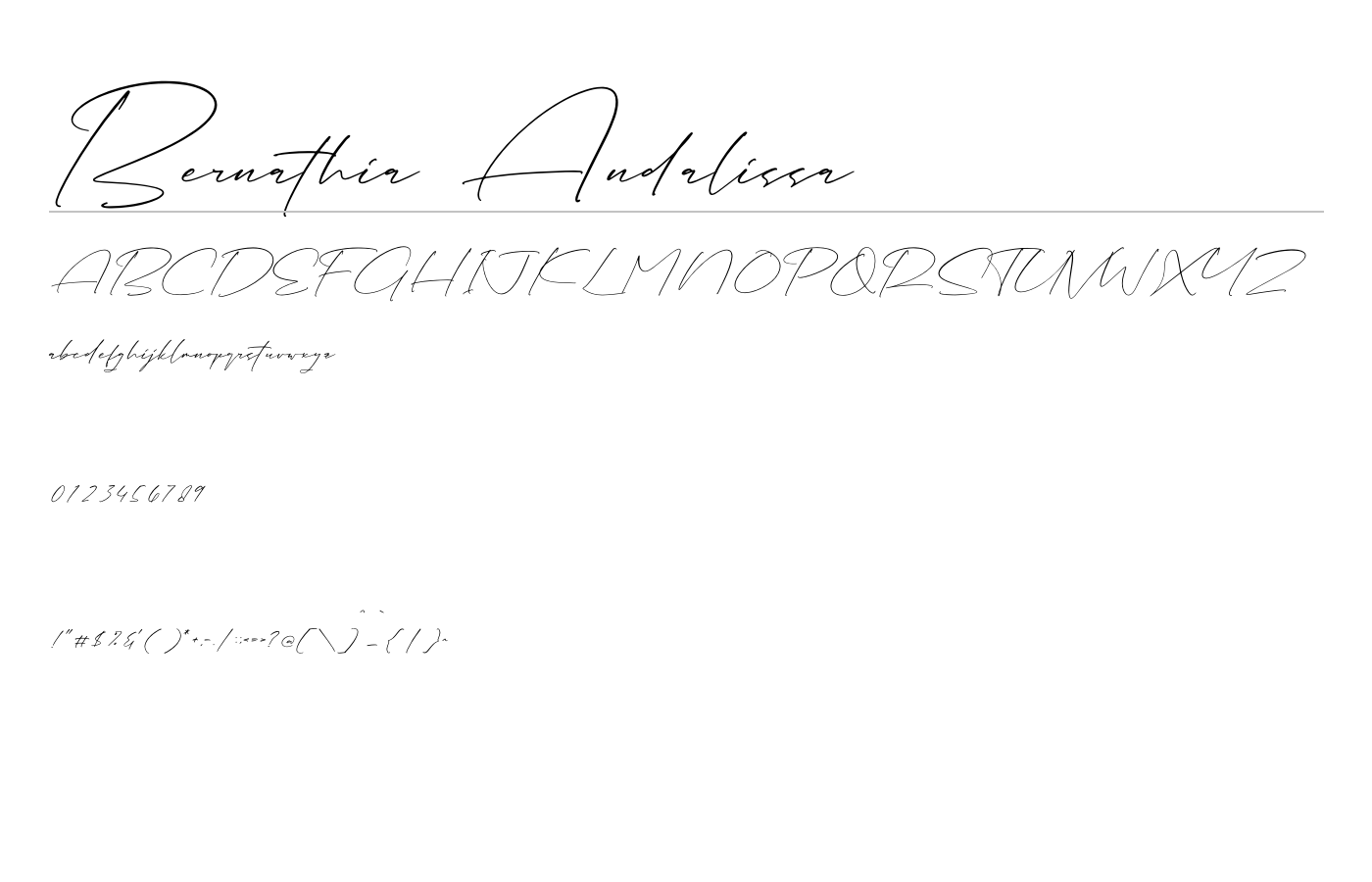
Bernathia Andalissa is a delicate, handwritten script font characterized by its thin, flowing strokes and elegant, airy letterforms. With its graceful, calligraphic style and sophisticated flair, it conveys a modern yet timeless charm, making it ideal for luxury branding, invitations, and stylish editorial designs where a personal, refined touch is desired. This font works beautifully in headlines and logos that require a sense of elegance and subtle sophistication.
Bernathia Andalissa Font